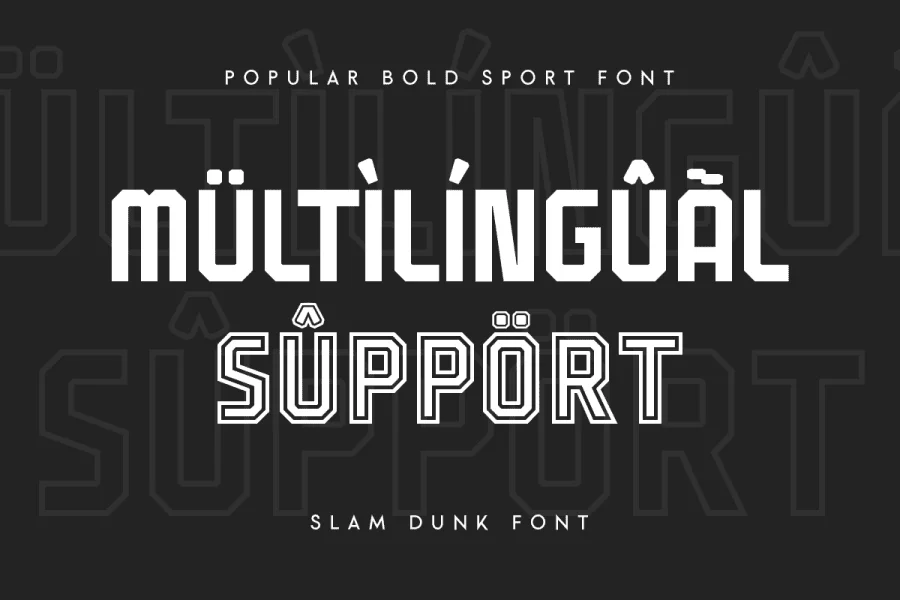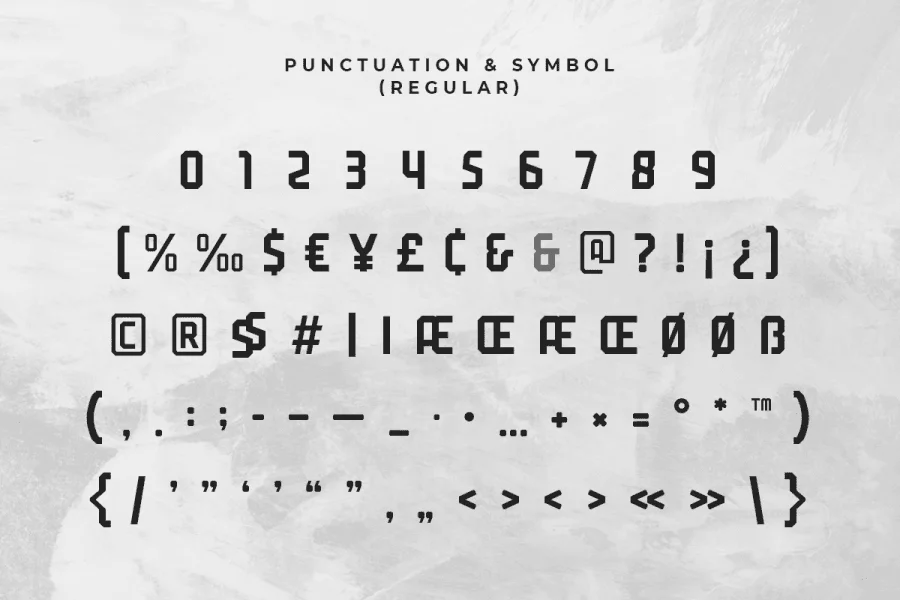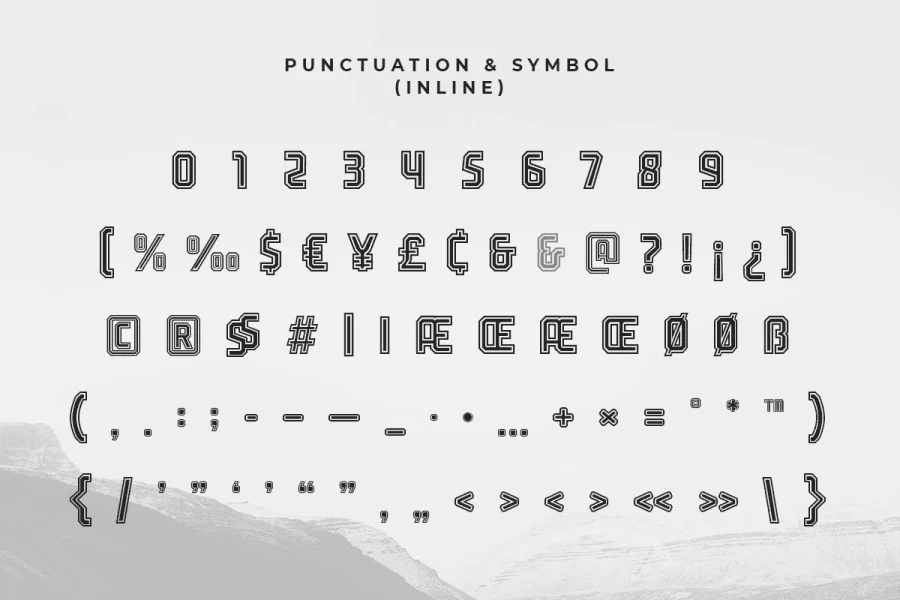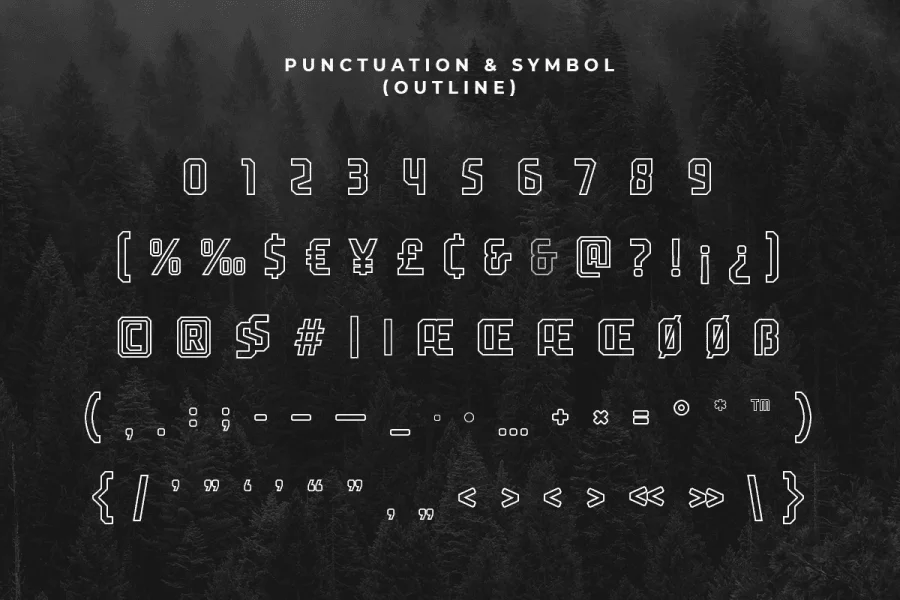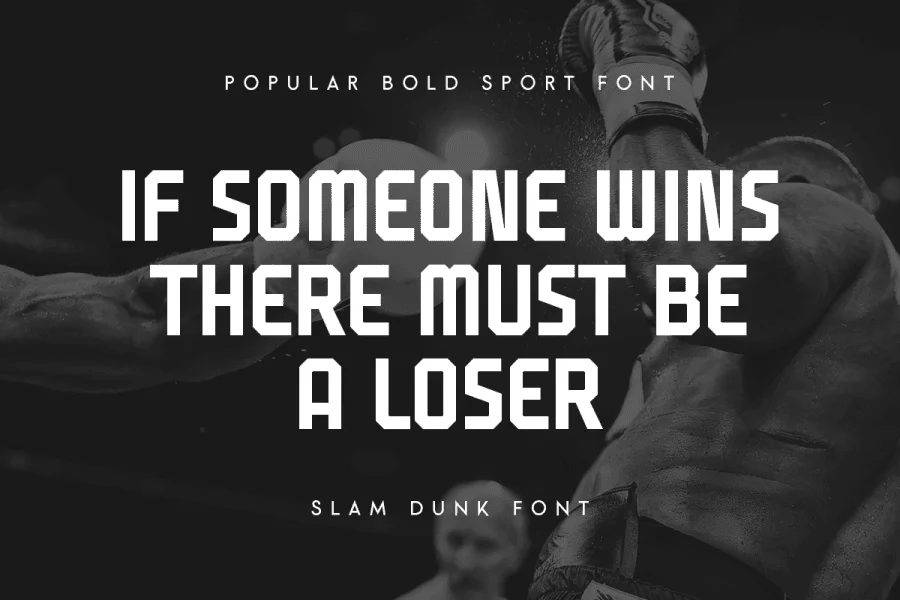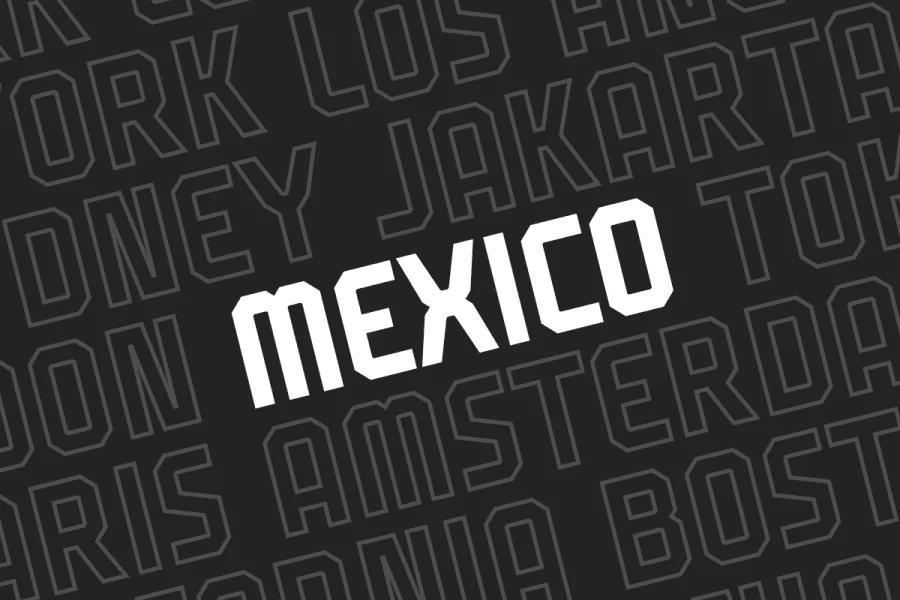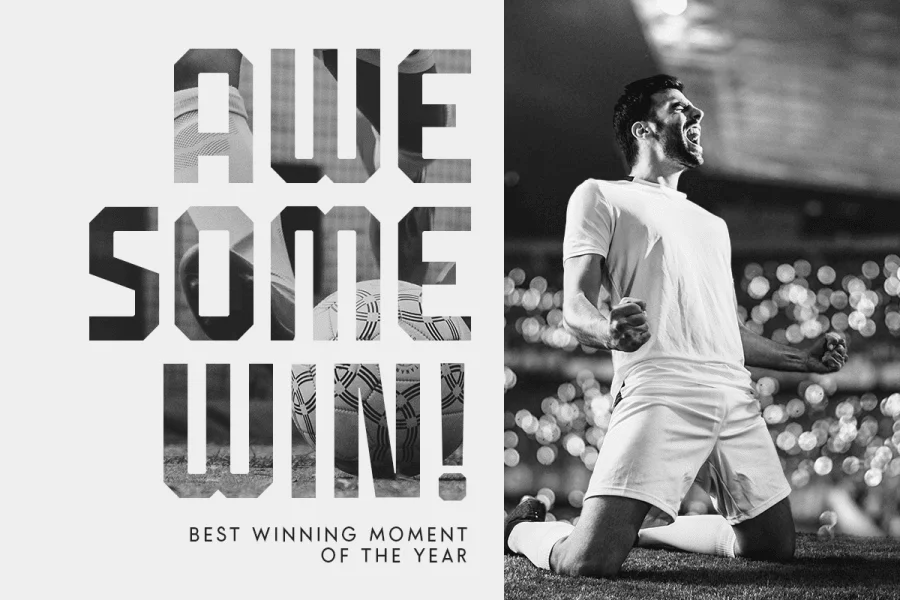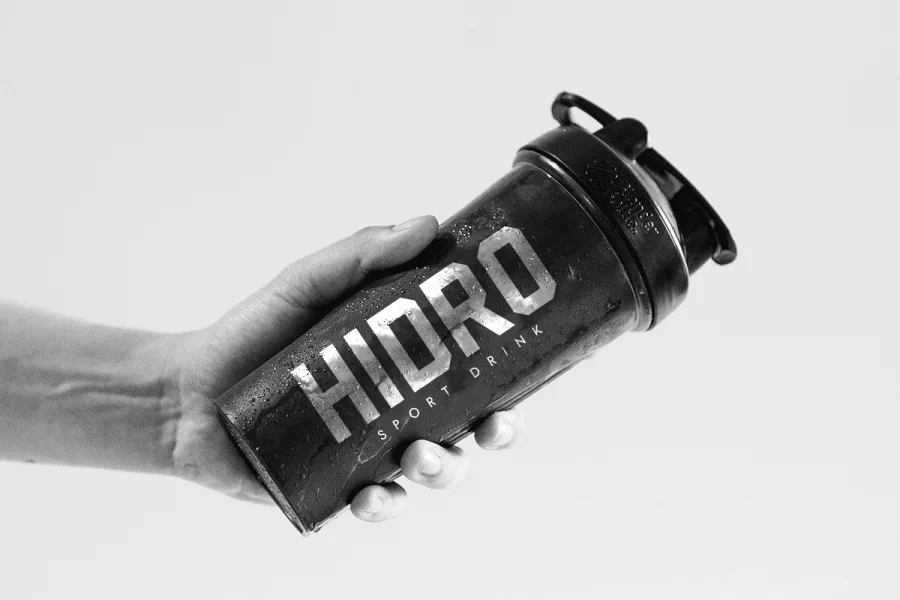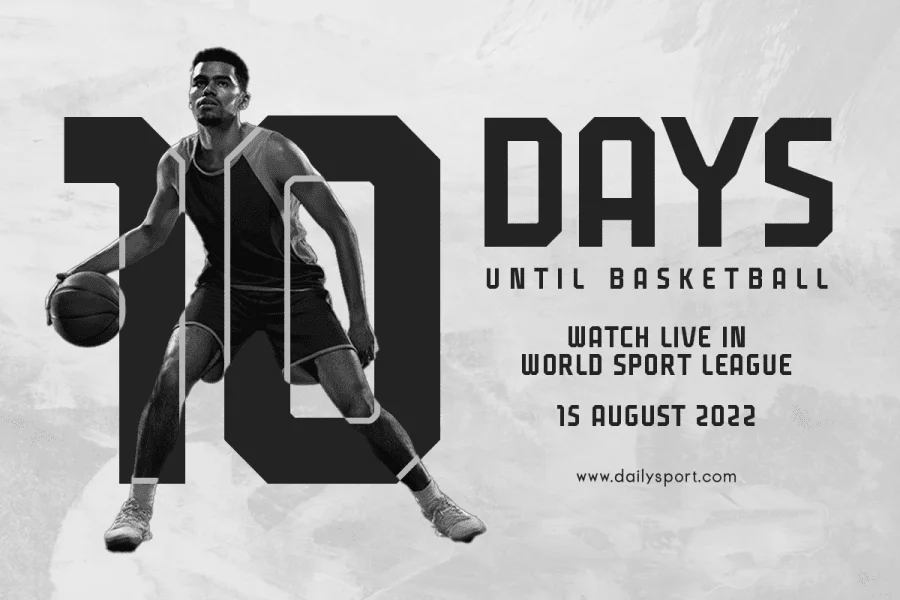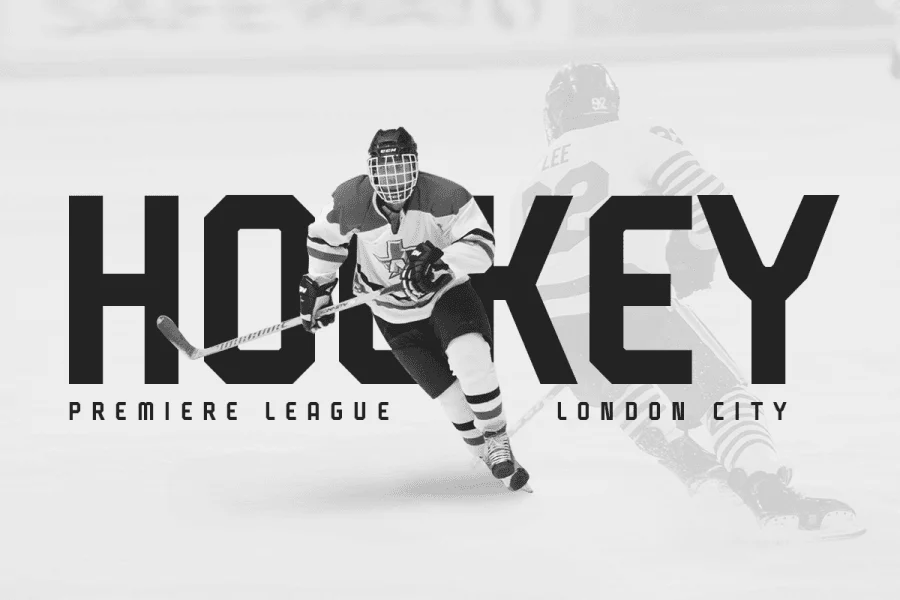
Slam Dunk is a Popular Bold Sport Font that created special for Branding, Title and more stand out typography for sport and action. It’s so perfect to add your style and headline overview for sport, technology, actions, and fighting theme. And specially for this font, we crafted for bold action style and modern feels so enjoy to create any project that will show your main idea out.
- Creative characters prepared to get best results
- Ready with All Uppercase characters